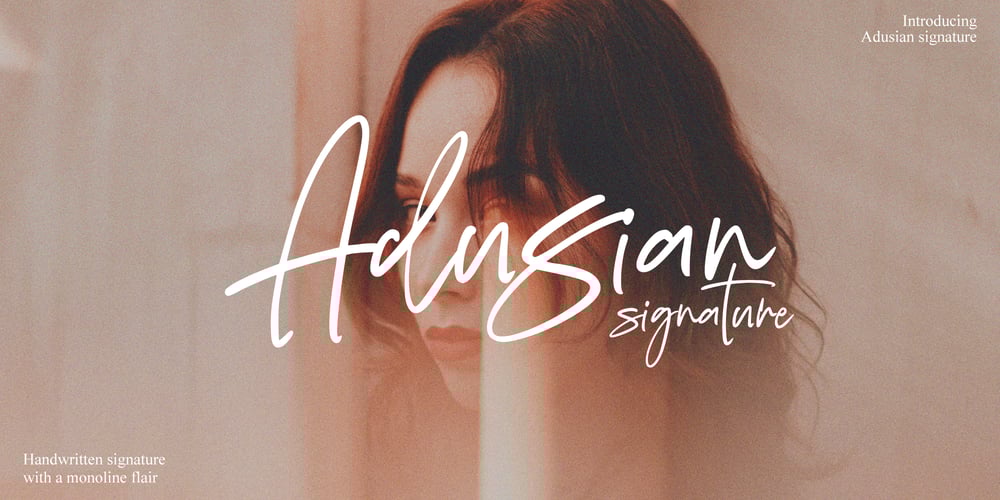
Adusian Signature Font Family was designed by Dzulka Elfira and published by Tebaltipis Studio. Adusian Signature contains 1 styles and family package options. Adusian Signature with a handmade Signature style, decorative characters and a dancing baseline! So beautiful on invitation like greeting cards, branding materials, business cards, quotes, posters, and more!!Adusian Signature come with 200+ glyphs. The alternative characters were divided into several Open Type features such as Swash, Stylistic Sets, Stylistic Alternates, and Ligature. The Open Type features can be accessed by using Open Type savvy programs such as Adobe Illustrator, Adobe InDesign, Adobe Photoshop Corel Draw X version, And Microsoft Word. And this Font has given PUA unicode (specially coded fonts). so that all the alternate characters can easily be accessed in full by a craftsman or designer.Adusian Signature Features :Uppercase & Lowercase International Languange & Symbols Support Punctuation & Number PUA Unicode Range Standard Ligatures Discretionary Ligatures Stylistic Alternates Stylistic Set.Thank you,